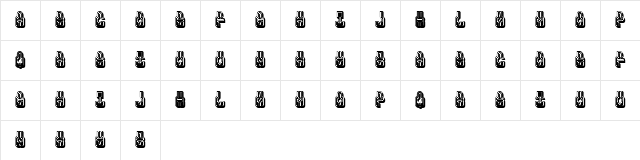
Phenomenal Regular
Design Context for Phenomenal
Phenomenal is a composed and adaptable typeface that performs quietly and consistently across a wide range of design contexts.
Who designed the Phenomenal Regular font?